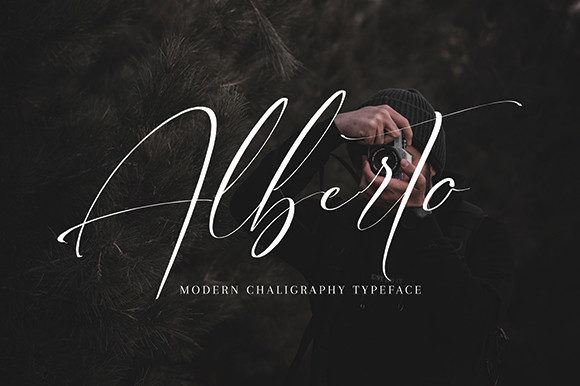
Harness the Power of Elegance with Alberto Font: Where Beauty and Professionalism Converge
Indulge in the timeless beauty of Alberto Font, a captivating handwritten font that exudes elegance and professionalism. Designed by the creative minds of Pineungtype & Missinklab, Alberto is not just a font; it's an experience that transforms your digital creations into works of art.
Step into a world of sophistication as you explore the enchanting curves and delicate strokes of Alberto. Each letter dances across the screen with a unique and captivating charm, inviting you to create designs that resonate with style and grace. Whether you're crafting eye-catching logos, branding that leaves a lasting impression, or heartfelt quotes that touch the soul, Alberto is your perfect companion.
Unleash your creativity and let your imagination soar as you discover the endless possibilities that Alberto Font offers. Its versatility knows no bounds, adapting seamlessly to a myriad of digital platforms and projects. Effortlessly elevate your social media presence, captivate your audience with stunning presentations, or add a touch of elegance to your website with Alberto's timeless appeal.
Alberto Font is more than just a font; it's an investment in your digital identity. Its ability to transform ordinary text into captivating works of art will leave a lasting impression on your audience. Embrace the power of Alberto and witness how it transforms your designs into masterpieces that command attention and admiration.